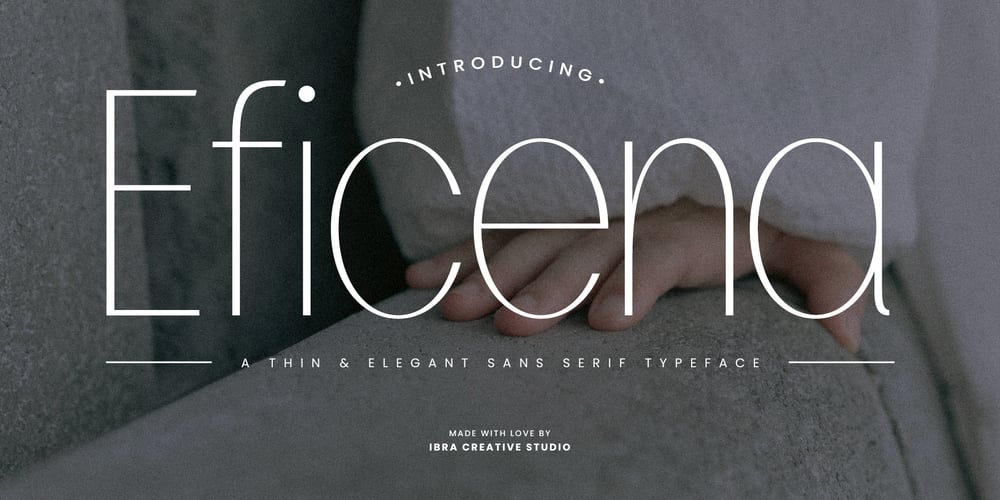
Eficena Font Family was designed by Roisatul Azizah and published by IbraCreative. Eficena contains 1 styles and family package options. Eficena – Thin & Elegant Sans Serif TypefaceEficena, a thin and elegant sans serif typeface, exudes sophistication and refinement with its delicate lines and graceful curves. Each letter in Eficena embodies a sense of understated elegance, making it perfect for projects that require a touch of sophistication. Whether used for luxury branding, editorial design, or minimalist layouts, Eficena effortlessly adds a sense of class and style. Its versatility and timeless appeal make it an ideal choice for designers seeking to elevate their creations with a touch of understated luxury and elegance. Eficena is perfect for branding projects, logo, wedding designs, social media posts, advertisements, product packaging, product designs, label, photography, watermark, invitation, stationery, game, fashion and any projects.Fonts include multilingual support for; Afrikaans, Albanian, Czech, Danish, Dutch, English, Estonian, Finnish, French, German, Hungarian, Italian, Latvian, Lithuanian, Norwegian, Polish, Portuguese, Slovak, Slovenian, Spanish, Swedish.